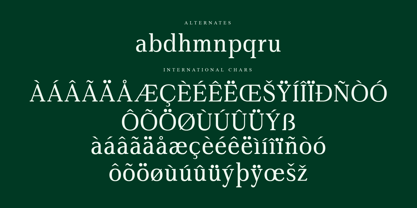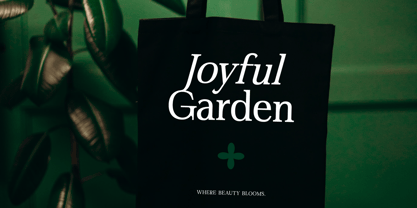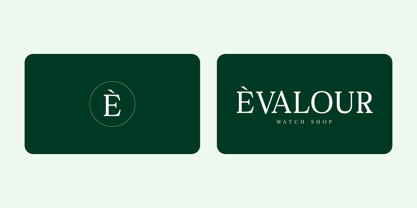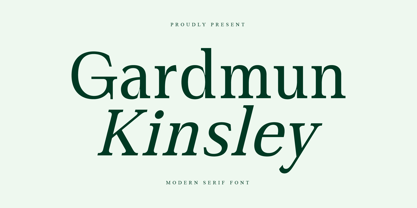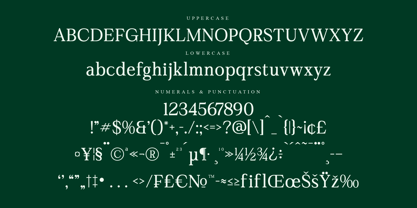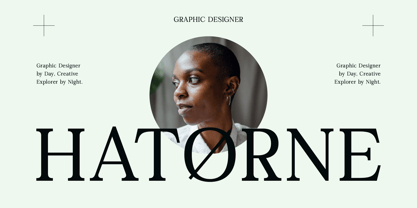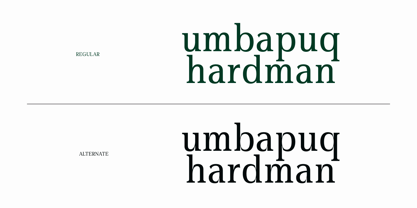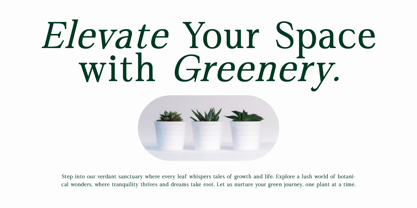
Gardmun Kinsley
by Letterena Studios
The Gardmun Kinsley Font Family was designed by Heru Utama Putra and published by Letterena Studios. Gardmun Kinsley contains 2 styles and family package options. More about this family
Gardmun Kinsley – Modern Serif Font , from Letterena, is a Luxury Serif font, suitable for any projects such as: logos, branding projects, homeware designs, product packaging, mugs, quotes, posters, shopping bags, t-shirts, book covers, name card, invitation cards, greeting cards, label, photography, watermark, special events, and all your other luxury and beautiful projects that need a Luxury serif taste.